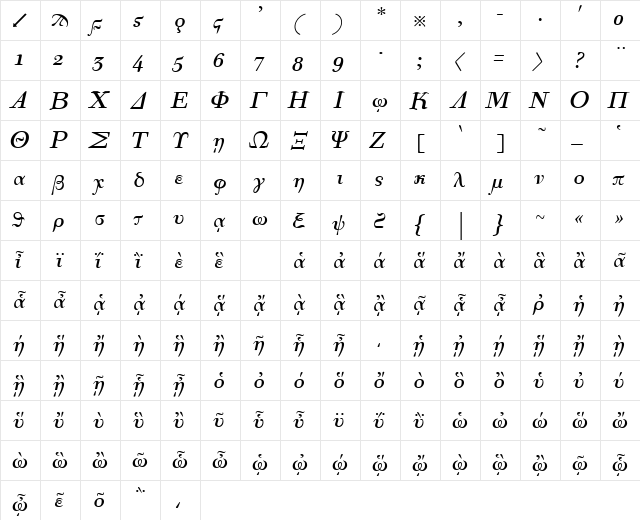
Korinthus Italic
Design Context for Korinthus Typeface
Korinthus is a composed and adaptable typeface that performs quietly and consistently across a wide range of design contexts. The slanted form adds forward momentum and visual energy.
Pro Tip: Try Korinthus for annotation and caption copy alongside an upright companion — the contrast in angle creates a dynamic but ordered typographic system.